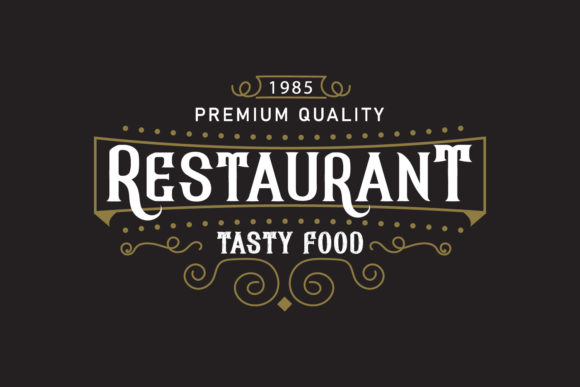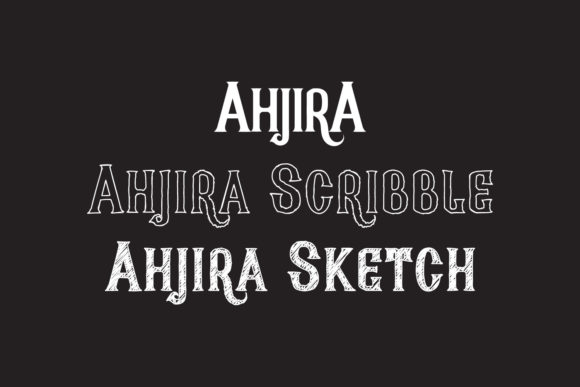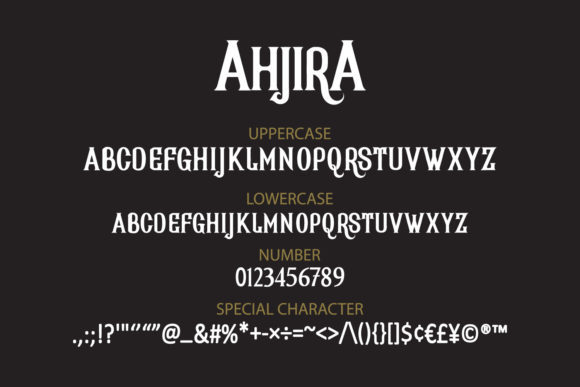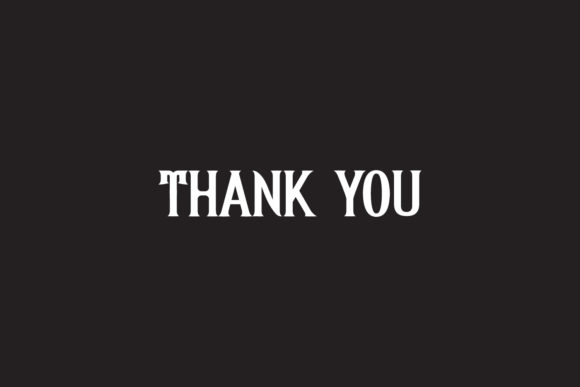
The Perfect Blend of Vintage Charm and Modern Appeal
Have you ever been rummaging through an old trunk, only to stumble upon a dusty, yet elegant invitation from a bygone era? The intricate designs, the classic typography, and the warm, inviting feel it gives off – it’s a moment that sparks creativity and sets the imagination ablaze. For designers, this feeling is a constant quest, and that’s where the Ahjira Font comes in – a vintage font that embodies the essence of classic serifs.
Designed to bring a touch of nostalgia to your designs, the Ahjira Font is perfect for branding, product packaging, invitations, and more. Its unique characteristics make it a valuable asset for designers looking to add a vintage twist to their work. Whether you’re creating quotes, t-shirts, labels, posters, or logos, the Ahjira Font is sure to bring a sense of sophistication and elegance to your designs.
Designer Review: Ahjira Font
Overall, I think the Ahjira Font is a solid choice for designers. Here are some things that I think work well:
- ✨ Unique character: Ahjira Font has a distinct and interesting character that can add a lot of personality to a design. It’s great for projects that need a bit of flair.
- ✨ Versatility: This font is surprisingly versatile and can work well for a variety of design projects, from logos to body text.
- ✨ OpenType features: Ahjira Font includes a range of OpenType features, including swashes and ligatures, which can add a lot of depth and interest to a design.
- ⚠️ Limited language support: Ahjira Font may not include all of the languages and characters that you need for your project.
- ⚠️ May not be suitable for small text: Ahjira Font is a decorative font and may not be suitable for small text or body copy.
Overall, I think the Ahjira Font is a great choice for designers who want to add a bit of personality and flair to their projects. While it may have some limitations, it’s a solid choice for the right kind of project.
Practical Application Guide for Ahjira Font
Tips for Getting the Most Out of Ahjira Font
Experiment with different font sizes, colors, and combinations to create visually appealing designs.
Use Ahjira Font for titles, headings, and emphasis to add a touch of elegance to your designs.
Combine Ahjira Font with other fonts to create a unique and visually appealing typography style.
Use Ahjira Font for:
Titles and headings in design projects.
Business cards and letterheads.
Brochures and flyers.
Wedding invitations and event materials.
Alternatives to Ahjira Font for DesignersAhjira Font is a popular sans-serif font known for its clean and modern look. However, there are many other alternatives that designers can consider for their projects. Here are a few options: